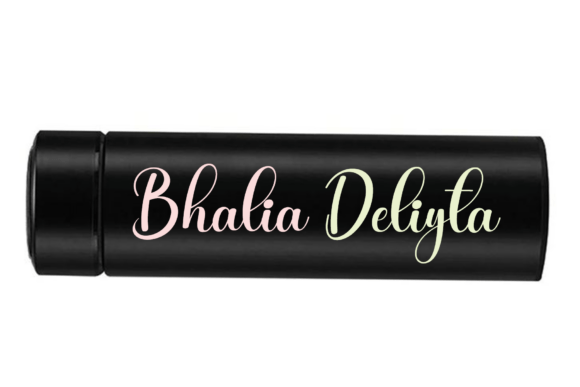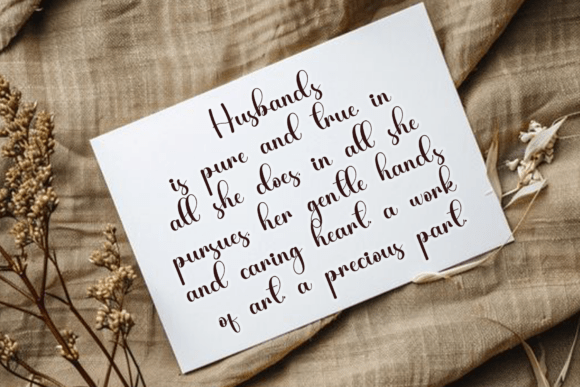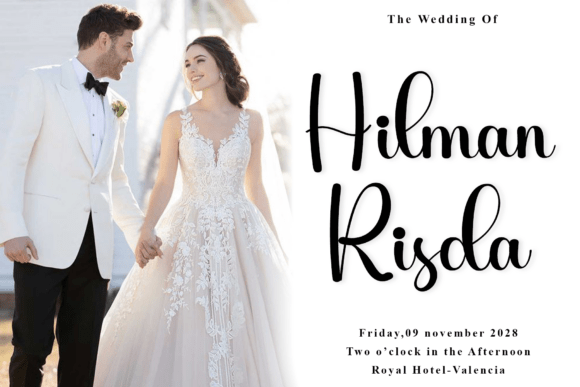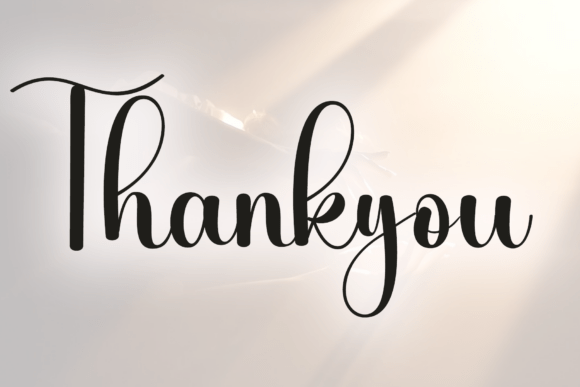
Discover the Charm of Anabela Font: Elevate Your Designs with this Lovely Handwritten Font
Are you a designer or crafter looking for a font that can add a touch of elegance and sophistication to your work? Look no further than Anabela Font, a lovely and timeless handwritten font that is perfect for creating eye-catching logos, branding, and quotes. With its unique and beautiful touch, Anabela Font is sure to make your design come alive!
What Makes Anabela Font So Special?
Anabela Font is a one-of-a-kind handwritten font that boasts a range of characteristics that set it apart from other fonts. Here are just a few reasons why Anabela Font is a cut above the rest:
- Unique Letterforms: Every letter in Anabela Font has a unique and beautiful touch, which gives it a distinctive and personalized feel. Whether you’re creating a logo, branding materials, or quotes, Anabela Font is sure to add a touch of elegance and sophistication to your work.
- Timeless Appeal: Unlike some fonts that can look dated or trendy, Anabela Font has a timeless appeal that will never go out of style. Its classic, handwritten look is perfect for designers and crafters who want to create work that will stand the test of time.
- Versatility: Anabela Font is incredibly versatile, making it perfect for a wide range of design applications. Whether you’re creating a logo, business card, or social media graphic, Anabela Font is sure to make your design stand out.
Why Choose Anabela Font for Your Designs?
So why should you choose Anabela Font for your designs? Here are just a few reasons why Anabela Font is the perfect choice for designers and crafters:
- Ease of Use: Anabela Font is incredibly easy to use, even for designers who are new to working with handwritten fonts. Its clean and simple design makes it easy to read and work with, even at small sizes.
- Customization: Anabela Font is highly customizable, allowing you to tailor it to your specific design needs. Whether you want to change the color, size, or style of the font, Anabela Font makes it easy to get the look you want.
- Emotional Connection: Anabela Font has a warm and inviting feel that can help you create an emotional connection with your audience. Whether you’re creating branding materials or quotes, Anabela Font is sure to resonate with your target audience.
How to Use Anabela Font in Your Designs
Now that you know why Anabela Font is the perfect choice for your designs, let’s talk about how to use it. Here are a few tips for incorporating Anabela Font into your work:
- Pair it with Other Fonts: Anabela Font pairs perfectly with other fonts, making it easy to create visually interesting and dynamic designs. Try pairing it with a clean sans-serif font for a bold and modern look.
- Experiment with Colors: Anabela Font looks great in a range of colors, from bold and bright to soft and pastel. Experiment with different colors to find the one that works best for your design.
- Use it for Quotes and Headlines: Anabela Font is perfect for quotes and headlines, where its elegant and sophisticated feel can really shine. Try using it to add a touch of elegance to your social media graphics or blog posts.